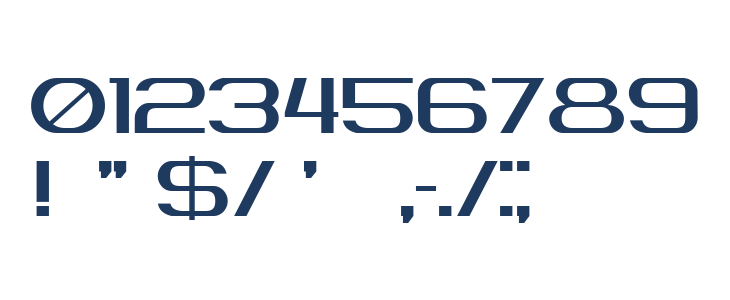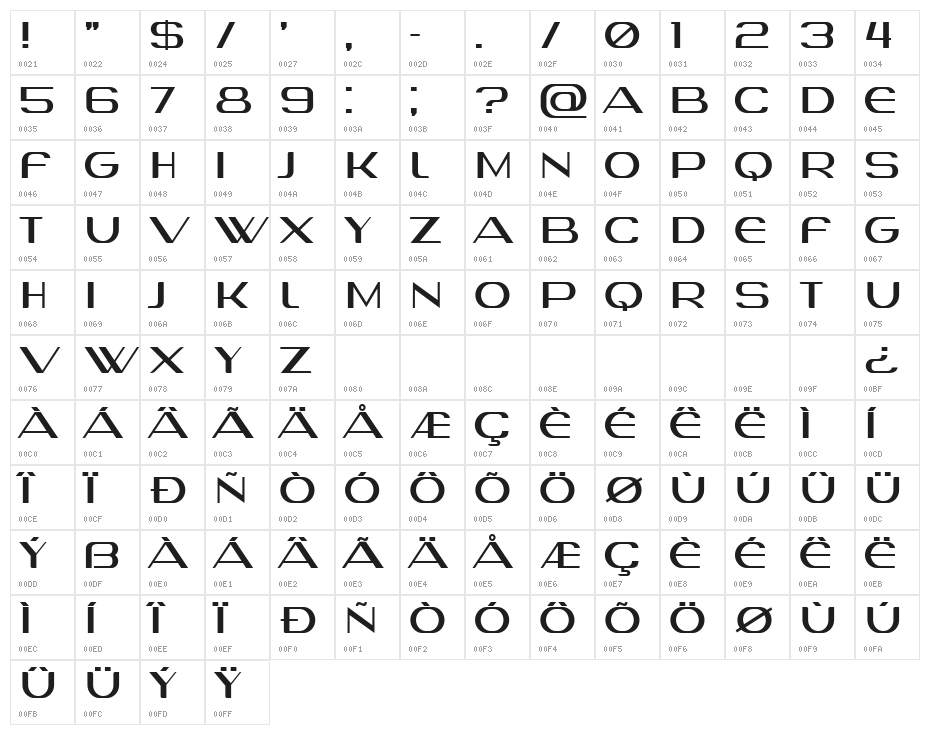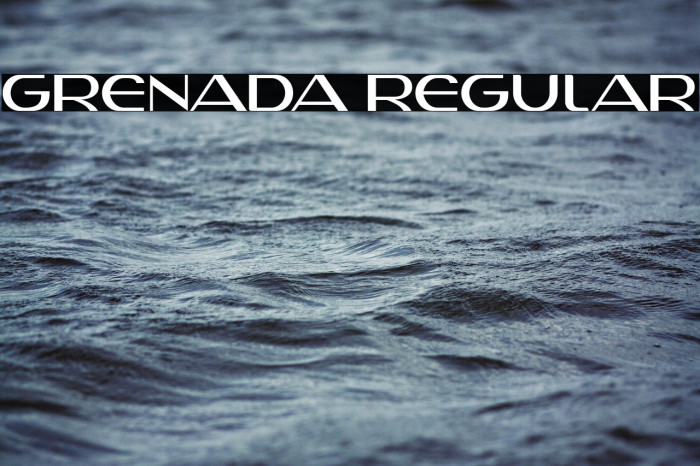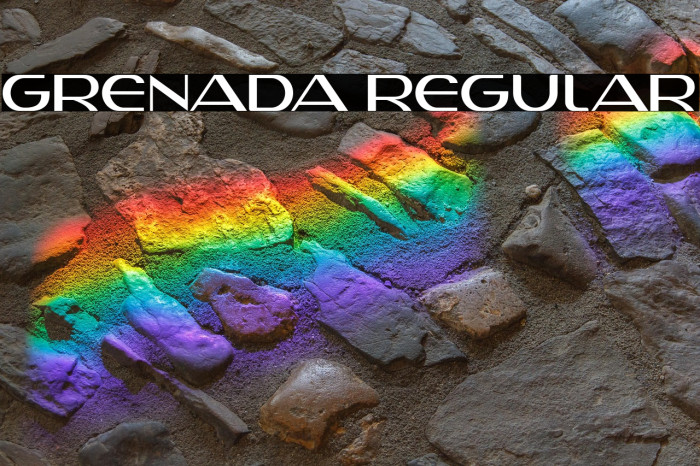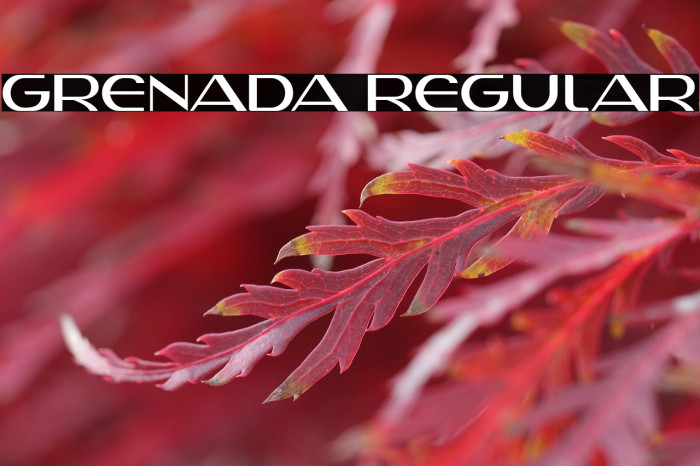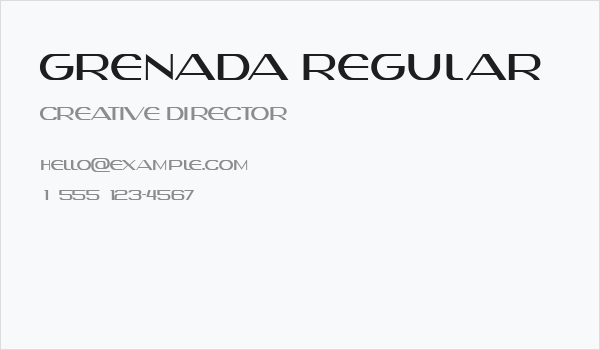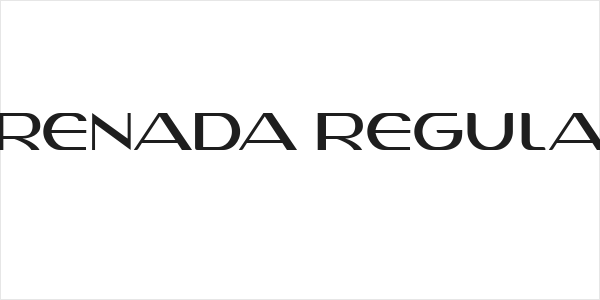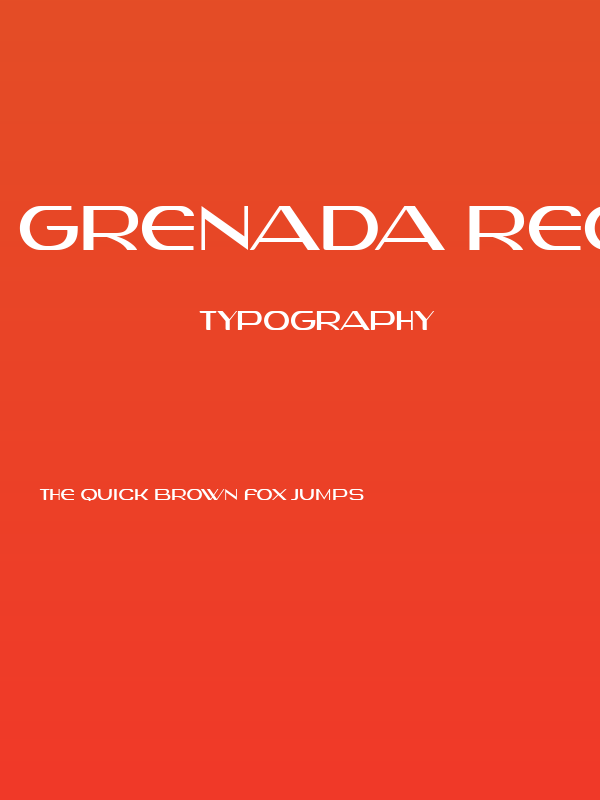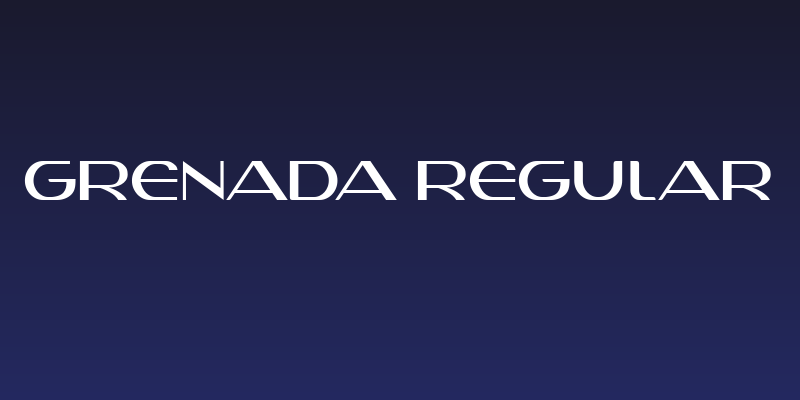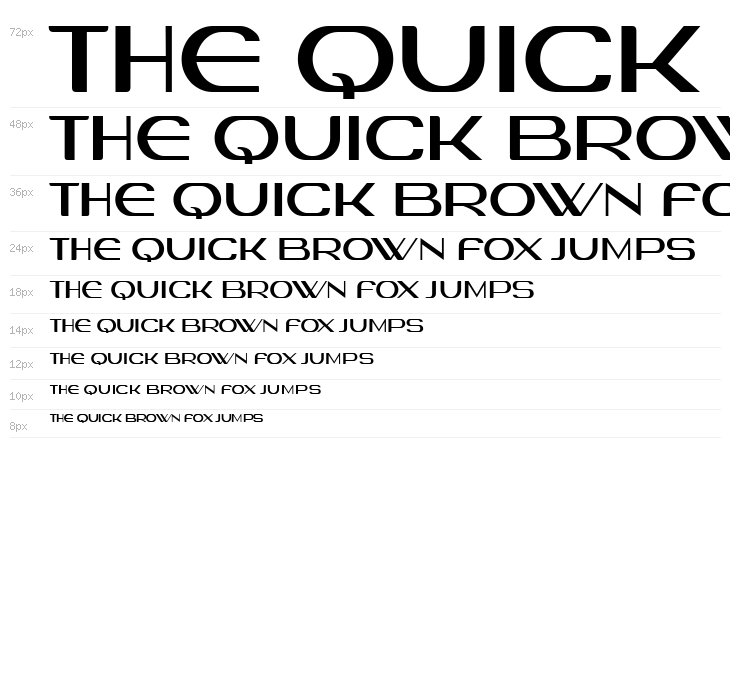
Grenada Regular Font
Grenada Regular Description
This font features a modern and futuristic design with a geometric structure. The characters are bold and have a unique style with sharp angles and clean lines. The uppercase letters are particularly striking, with a distinct angular cut that gives them a dynamic and forward-looking appearance. The numerals and special characters maintain this geometric theme, ensuring consistency throughout the typeface. The overall design is sleek and contemporary, making it suitable for projects that require a modern and innovative look.